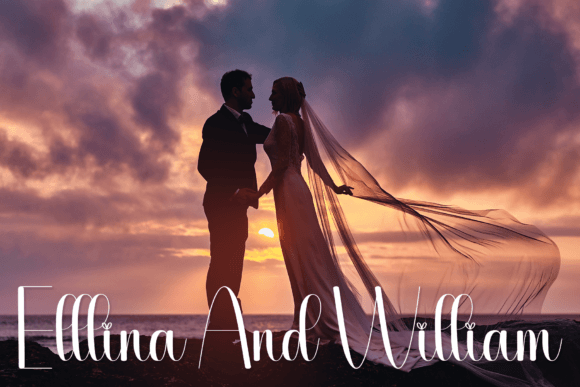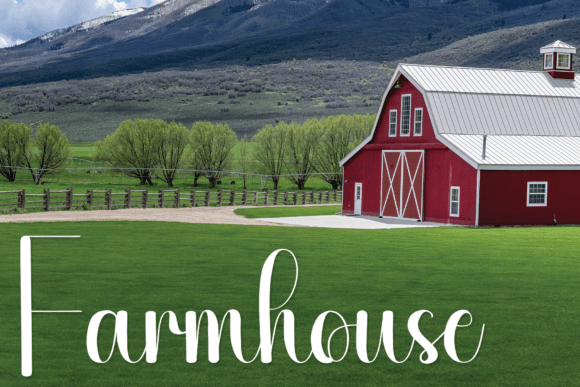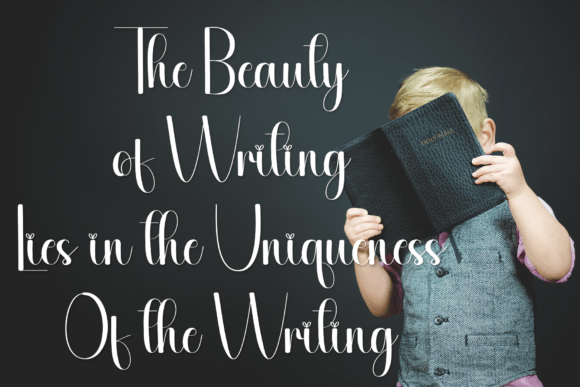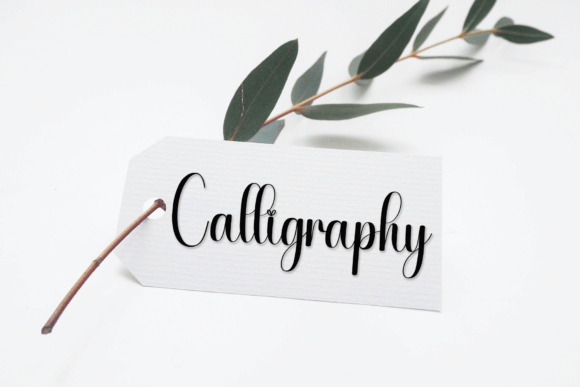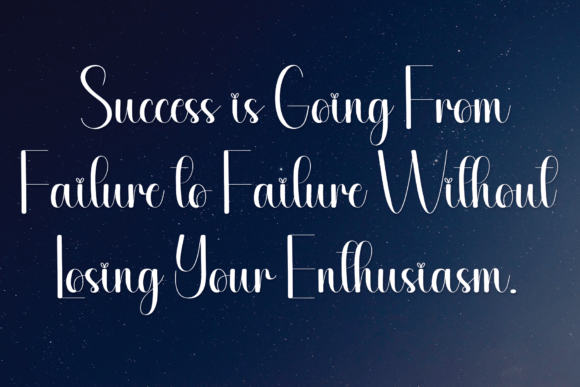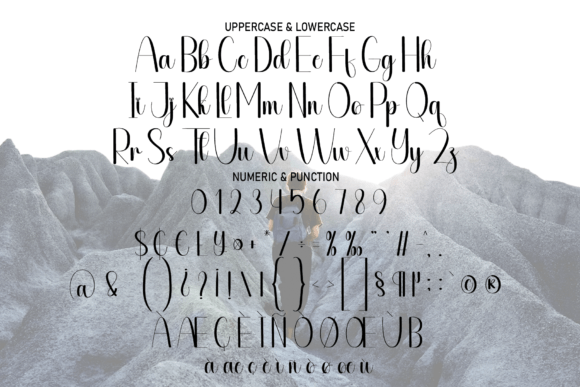
Introduction to Outward Font
Outward is a flowing handwritten font, described by an elegant touch, perfect for your favorite projects.
Key Features of Outward Font